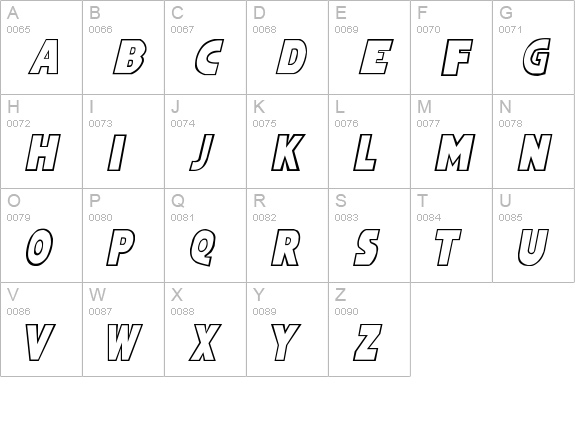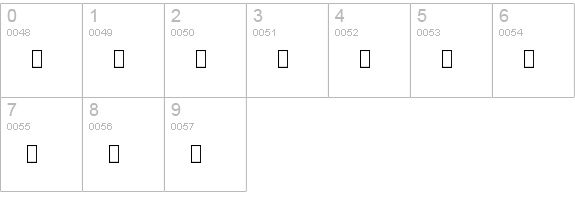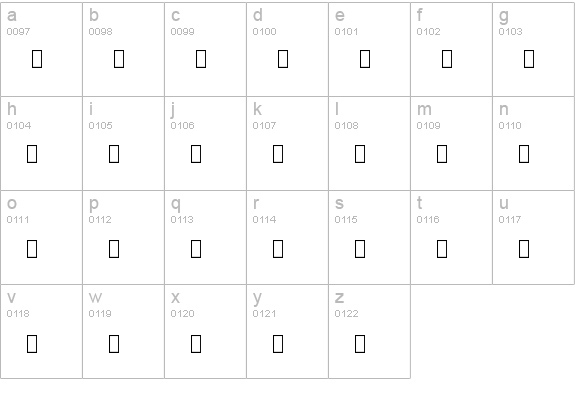
Wham! Font Details
Introducing Wham! font, a vibrant and energetic typeface that will bring a burst of excitement to your designs. With its playful and dynamic letterforms, Wham! font is perfect for creating eye-catching headlines, logos, posters, and more. This font exudes a sense of youthful exuberance and modernity, making it ideal for projects that require a touch of contemporary flair. Its bold and daring character will grab attention and leave a lasting impression on your audience. But the best part? Wham! font is completely free! That's right, you can freely download this incredible font at FontsMarket.com. Whether you're a professional designer or a passionate enthusiast, having access to such a high-quality font without any cost is truly a gift. Wham! font offers a wide range of glyphs, including uppercase and lowercase letters, numbers, punctuation marks, and special characters. Its versatility allows you to experiment with different combinations and create unique compositions that reflect your individual style. The clean and crisp lines of Wham! font ensure legibility even at small sizes, making it suitable for various applications, from website designs to social media graphics. It effortlessly adapts to different contexts, adding a touch of excitement to every project it graces. So don't miss out on this amazing opportunity! Download Wham! font for free at FontsMarket.com and unleash your creativity with this bold and energetic typeface. Let Wham! font be the spark that ignites your design journey and takes it to new heights.